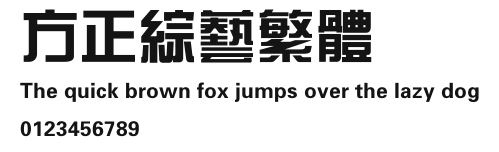
方正综艺繁体.ttf is a modern, elegant sans-serif font designed for ultimate readability and visual harmony. Perfect for branding, headlines, web design, and print materials.